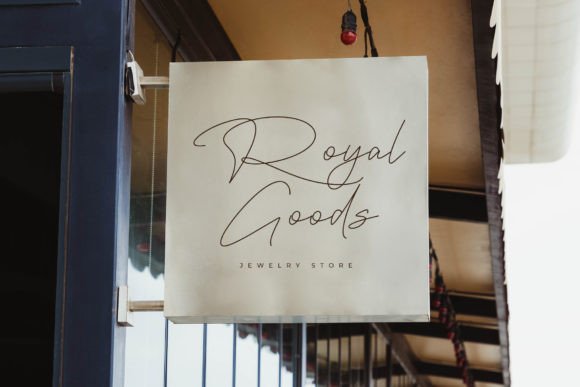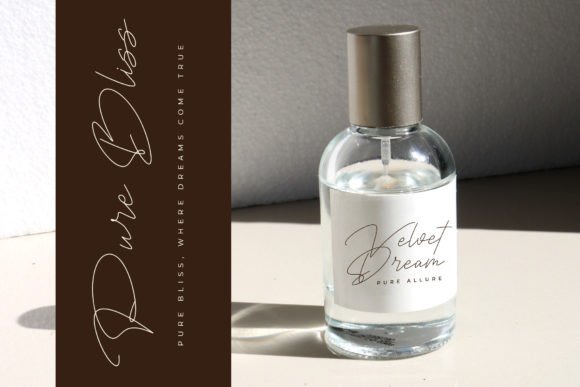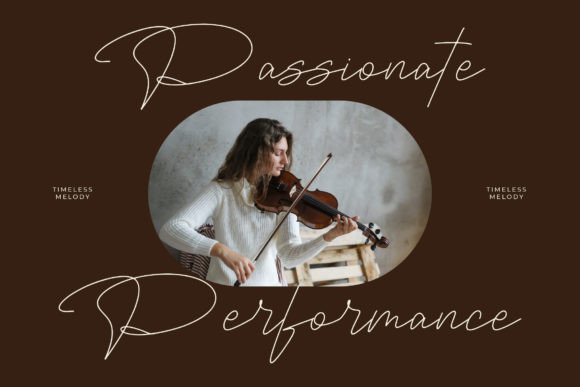
The Elusive Perfect Font: My Journey with Benitha Unity
Ah, the perfect font – a designer’s holy grail. I’ve lost count of how many projects I’ve worked on, only to hit a roadblock when it comes to finding that one special typeface that brings everything together. It was during one of these moments of frustration that I stumbled upon Benitha Unity, a stunning Monoline Signature Script from Letterena. In this article, I’ll share my experience with this luxury script font, and explore how you can make the most of it in your own projects.
First Impressions: A Love Affair with Benitha Unity
As soon as I laid eyes on Benitha Unity, I knew I was in love. This elegant, luxury script font is perfect for projects that demand a touch of sophistication and glamour. From logos and branding projects to homeware designs, product packaging, and more, Benitha Unity is sure to elevate your work to the next level.
What I Love About Benitha Unity
• ✨ Elegant and sophisticated design that’s perfect for luxury projects
• 💫 Beautifully crafted to take advantage of OpenType features
• 🎨 Highly versatile and adaptable to various design contexts
While Benitha Unity is an exceptional font, there are a few minor quirks to be aware of:
• 🤔 Some users may find the font a tad too ornate for very casual or playful projects
• ⚠️ As with many script fonts, it may not be the best choice for very long blocks of text
4. Experiment with OpenType features, such as glyphs and stylistic alternates, to add visual interest
4. Explore the various glyphs, ligatures, and stylistic alternates available in Benitha Unity
The Story Behind Benitha Unity: Designer Inspiration
Benitha Unity was crafted with the aim of creating a luxurious, high-end script font that would meet the demands of designers working on premium projects. The font’s creator drew inspiration from classic calligraphy and elegant typography, infusing it with modern sensibilities and versatility.
Q: What type of projects is Benitha Unity best suited for?
A: Benitha Unity is perfect for luxury projects, such as logos, branding, homeware designs, product packaging, and more.
Q: Is Benitha Unity suitable for body text?
A: While Benitha Unity is highly legible, it’s primarily designed for headlines and titles. For longer blocks of text, consider using a more traditional serif or sans-serif font.